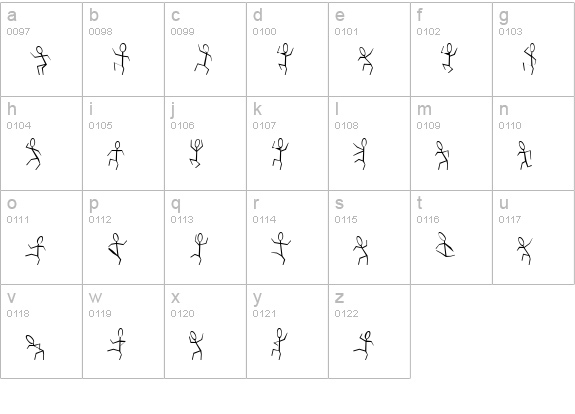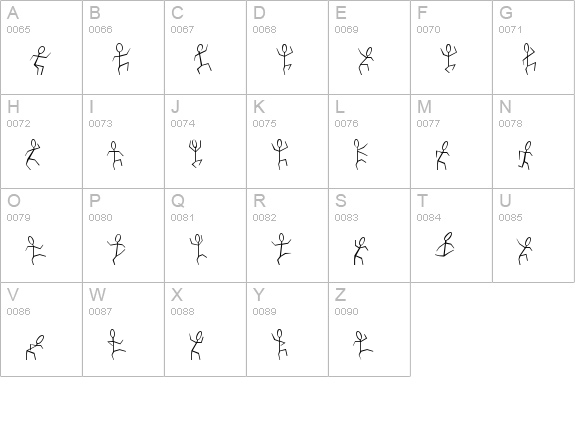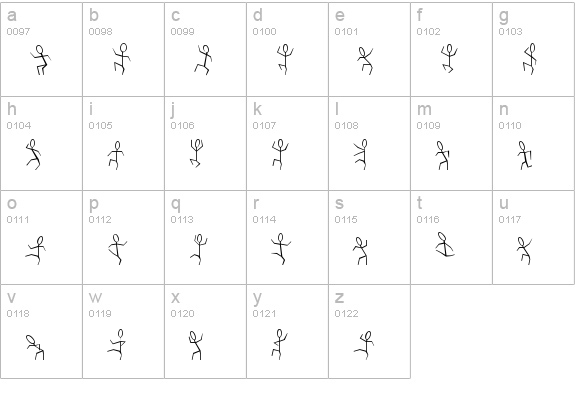
DanceMan Font Details
Introducing DanceMan, a captivating and dynamic font that will make your designs come alive with rhythm and movement. This font is perfect for those looking to add a touch of flair and energy to their projects. With its fluid and graceful letterforms, DanceMan embodies the essence of dance in every curve and stroke. Whether you're designing a poster for a dance performance, creating a logo for a dance studio, or simply want to inject some liveliness into your typography, DanceMan is the ideal choice. Its unique and expressive characters will captivate your audience and leave a lasting impression. What's more, DanceMan is absolutely free! You can easily download this font from FontsMarket.com, a trusted and reliable source for high-quality fonts. With just a few clicks, you can have access to this incredible font and start incorporating its rhythmic beauty into your designs. Don't miss out on the opportunity to elevate your projects with DanceMan. Download this stunning font today and let your creativity dance to a whole new beat.